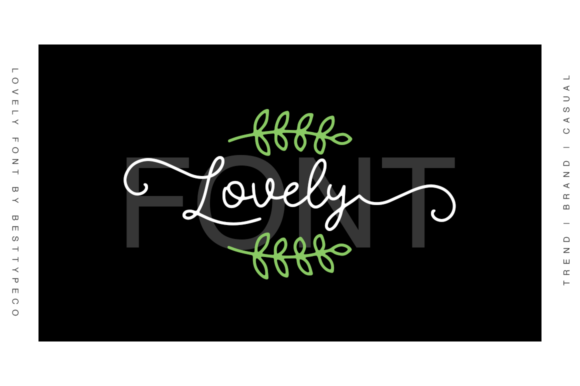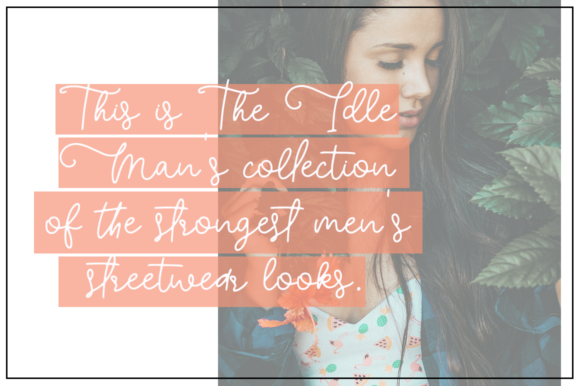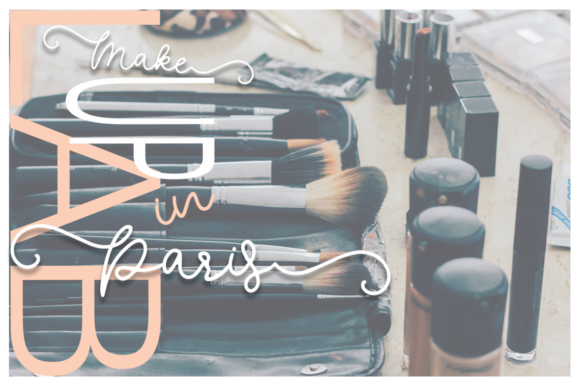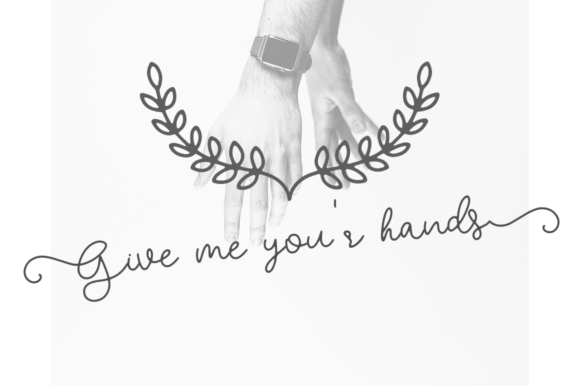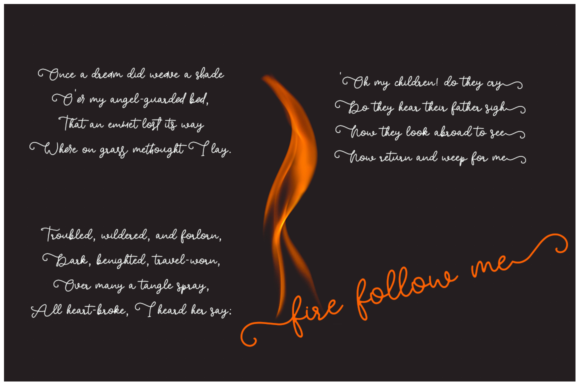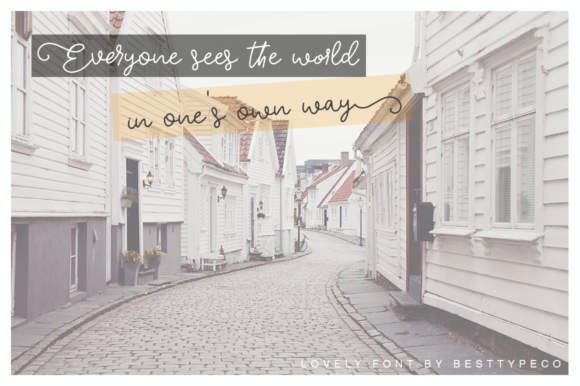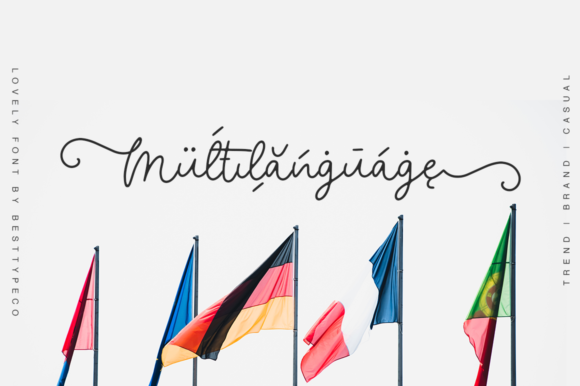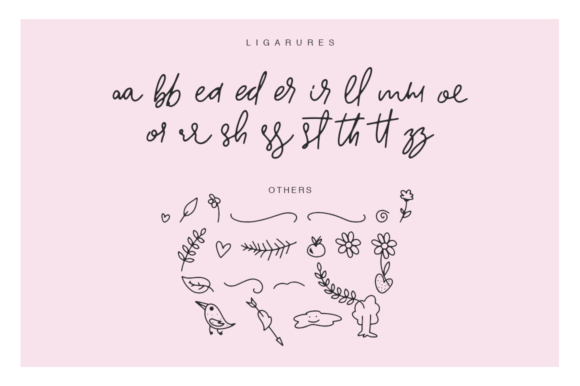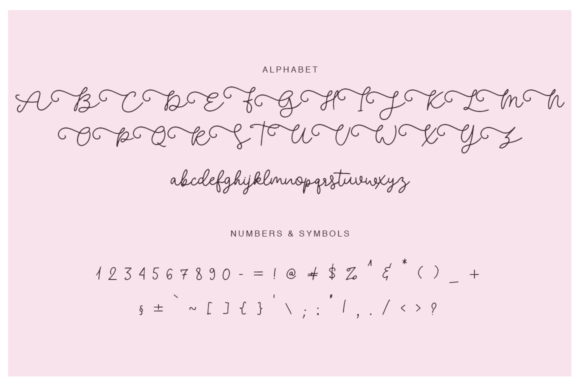
Power of Love Font
About Power of Love Font
Power of Love is an incredibly sweet and romantic script that will add a personal touch to your next design project.